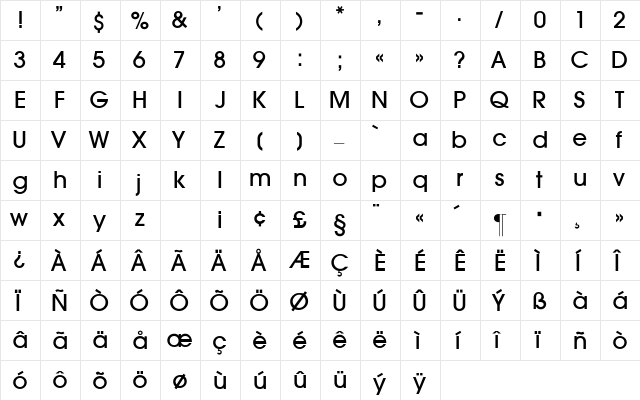
Avant_G-Medium Regular
Design Context for Avant_G-Medium Typeface
Avant_G-Medium is a composed and adaptable typeface that performs quietly and consistently across a wide range of design contexts.